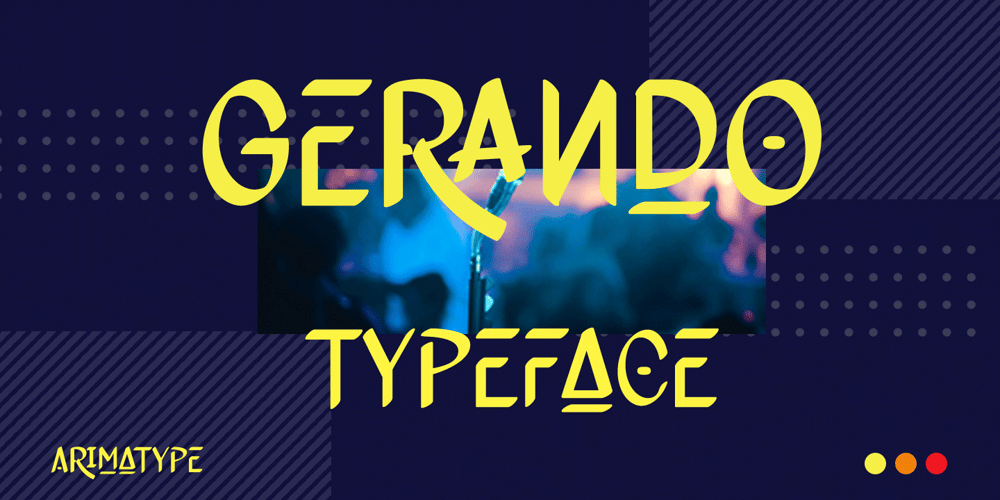
Gerando
Gerando font
Gerando Font Family was designed by Amri Mauludin and published by ArimaType. Gerando contains 1 styles and family package options. Gerando is a cool and adaptable display font. Add this modern font to each of your favorite designs and make them instantly stand out.If you have questions, please contact us at arimatype@gmail.com